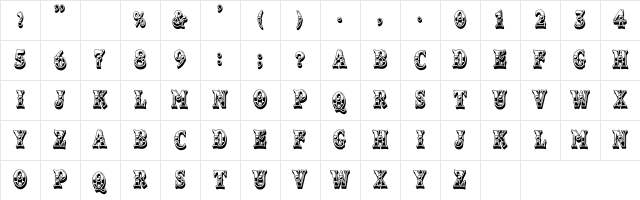
Emporium is a composed and adaptable typeface that performs quietly and consistently across a wide range of design contexts.
Who designed the Emporium Normal font?
This font was published by Brian Kniceley for Letterhead Fonts. Check the technical specs section for copyright and designer details.